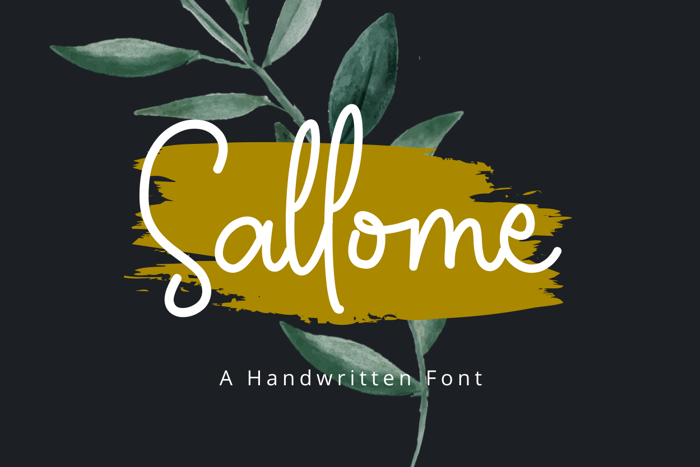
Sallome Font
Sallome is script font with a handwritten style make this font looks elegant, natural, stylish and perfect for any awesome projects that need handwriting taste.
Sallome is perfect for branding projects, logo, wedding designs, social media posts, advertisements, product packaging, product designs, label, photography, watermark, invitation, stationery and any projects that need handwriting taste.
Ligature